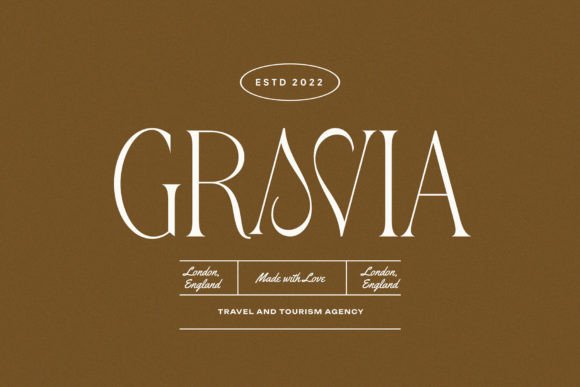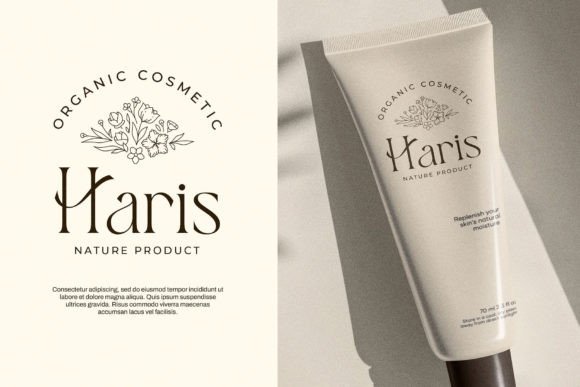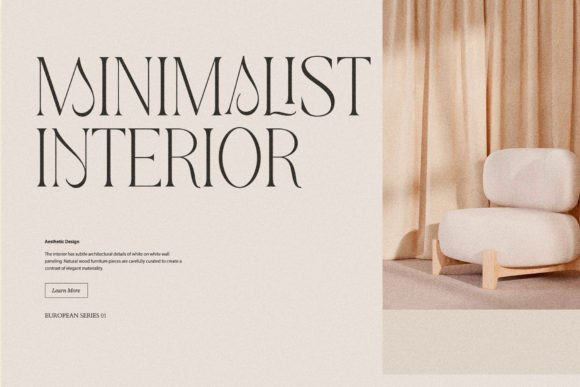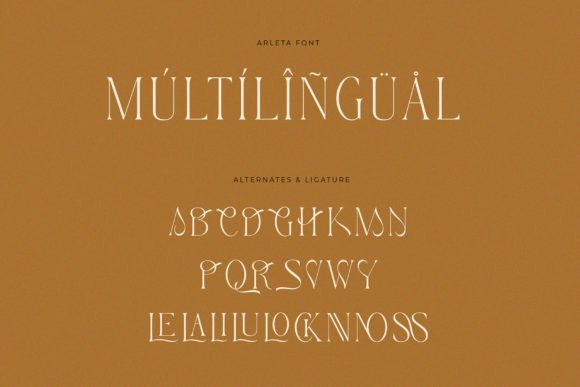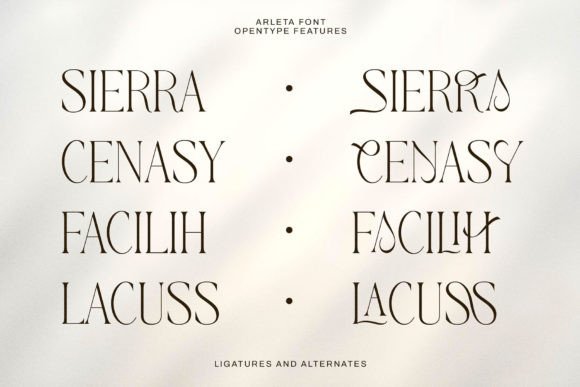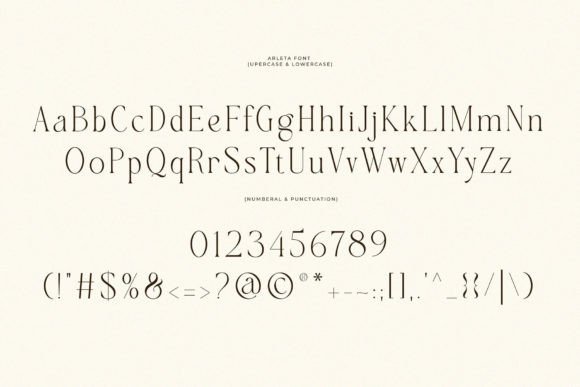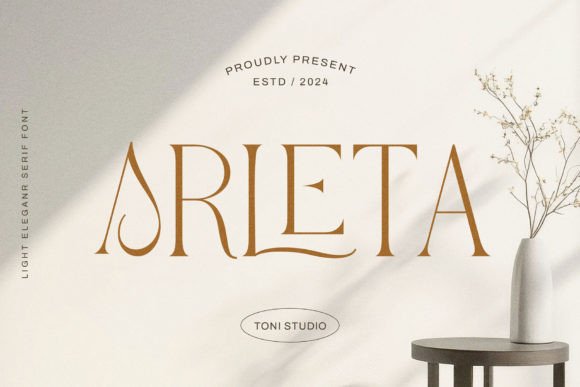
Introducing Arleta Font: Elevate Your Designs with Elegance and Sophistication
In the world of typography, a well-crafted font can make all the difference in elevating your design to new heights. Meet Arleta, a modern and elegant serif typeface that exudes luxury and sophistication. With its soft curves and premium quality, Arleta is the perfect choice for designers and crafters looking to add a touch of refinement to their work.
The Unique Characteristics of Arleta Font
Arleta’s unique blend of modernity and classic elegance sets it apart from other serif typefaces. Its soft curves give it a distinctive and sophisticated look, making it ideal for a wide range of applications, from logos and headlines to titles and formal documents. Whether you’re designing an invitation, label, magazine, book, or greeting card, Arleta’s luxurious feel and premium quality ensure that your work stands out from the crowd.
One of the key benefits of Arleta font is its versatility. Its elegant and sophisticated design makes it suitable for various formal forms, including:
- Headlines and titles
- Labels and packaging
- Magazines and books
- Stationery and novels
- Fashion and beauty branding
- Make-up and cosmetics packaging
Whether you’re working on a high-end fashion brand, a luxury product, or a special occasion, Arleta font provides the perfect typographic solution.
Crafting Excellence: The Making of Arleta Font
Arleta font is carefully crafted to ensure the highest level of quality and attention to detail. Every letterform, curve, and line is meticulously designed to create a seamless and luxurious reading experience. The result is a typeface that not only looks stunning but also feels premium and sophisticated.
Why Choose Arleta Font?
With so many fonts available, why choose Arleta? Here are just a few reasons why designers and crafters are falling in love with this elegant serif typeface:
- Unique and distinctive design: Arleta’s soft curves and modern elegance set it apart from other serif typefaces.
- Premium quality: Every aspect of Arleta font is carefully crafted to ensure a luxurious feel and high-end quality.
- Versatility: Arleta is suitable for a wide range of applications, from formal documents to creative projects.
- Elegance and sophistication: Arleta exudes refinement and luxury, making it perfect for high-end brands and special occasions.
Tips for Using Arleta Font
To get the most out of Arleta font, here are a few tips to keep in mind:
- Use it sparingly: Arleta’s elegance and sophistication are best showcased when used sparingly, such as in headlines or titles.
- Pair it with contrasting fonts: Combine Arleta with contrasting fonts to create visual interest and hierarchy.
- Experiment with font sizes: Arleta looks stunning in a range of font sizes, from large headlines to smaller body text.
Arleta font is a game-changer for designers and crafters looking to elevate their work with elegance and sophistication. With its unique blend of modernity and classic refinement, Arleta is the perfect choice for a wide range of applications. Whether you’re working on a high-end brand, a special occasion, or a creative project, Arleta font provides the perfect typographic solution. Try Arleta today and experience the power of premium typography.